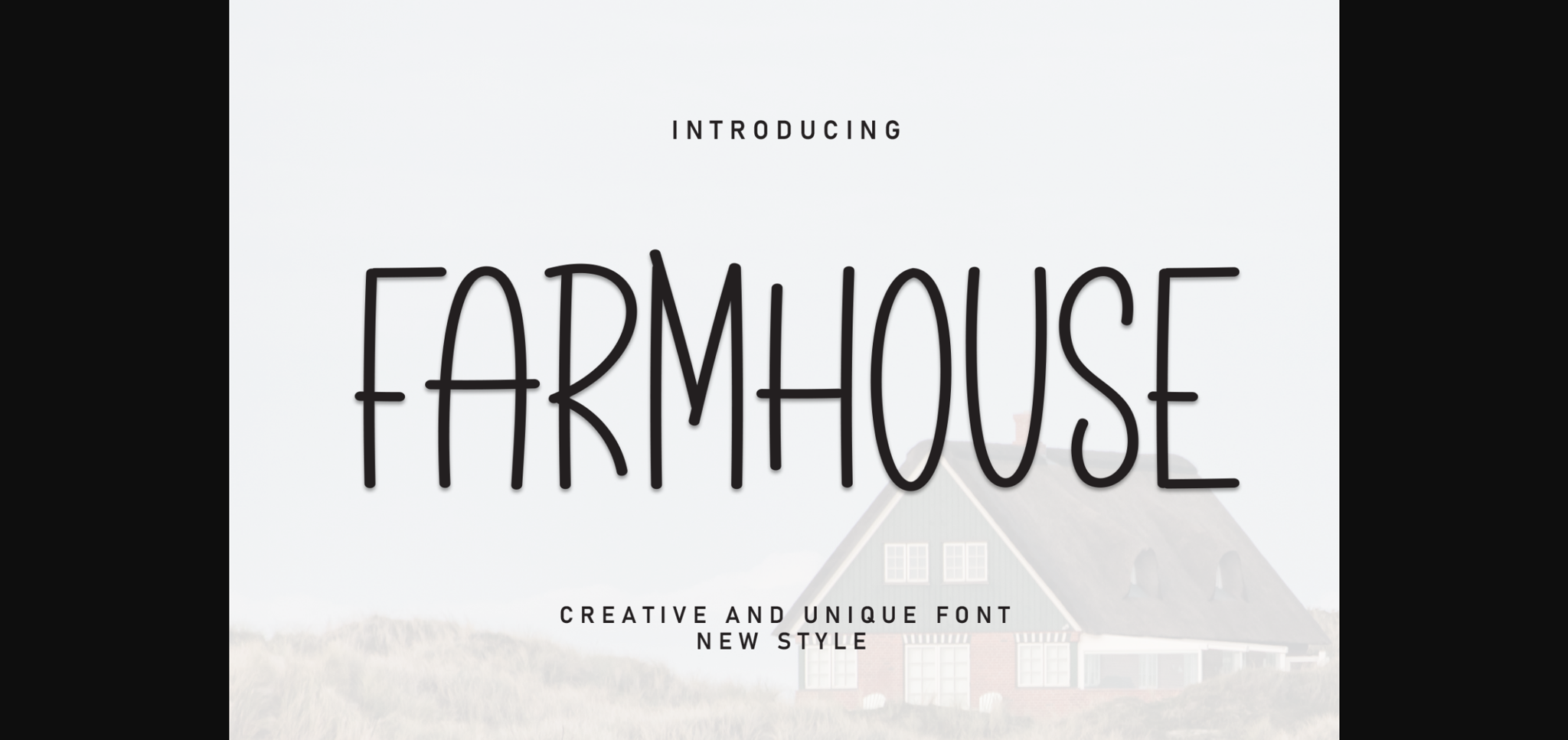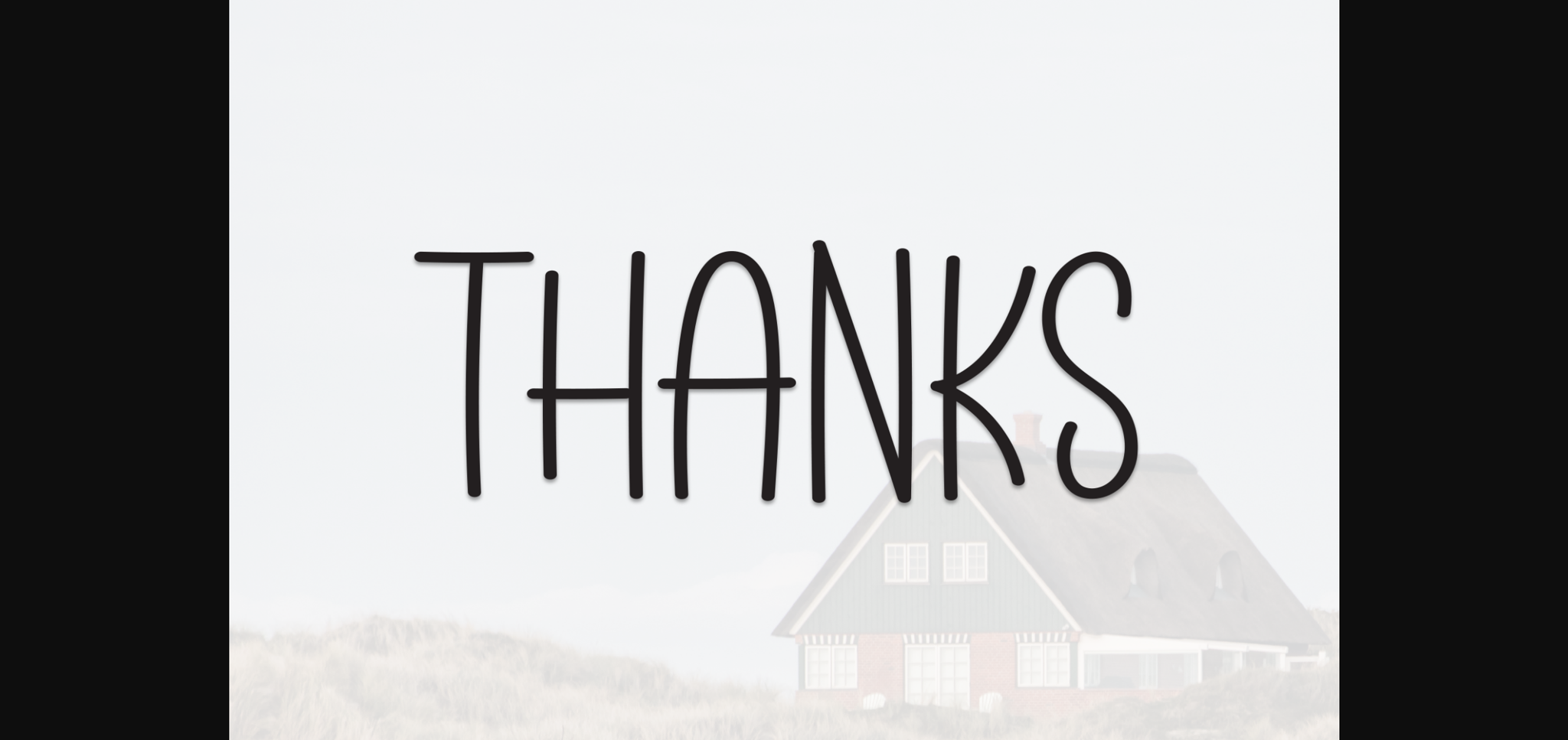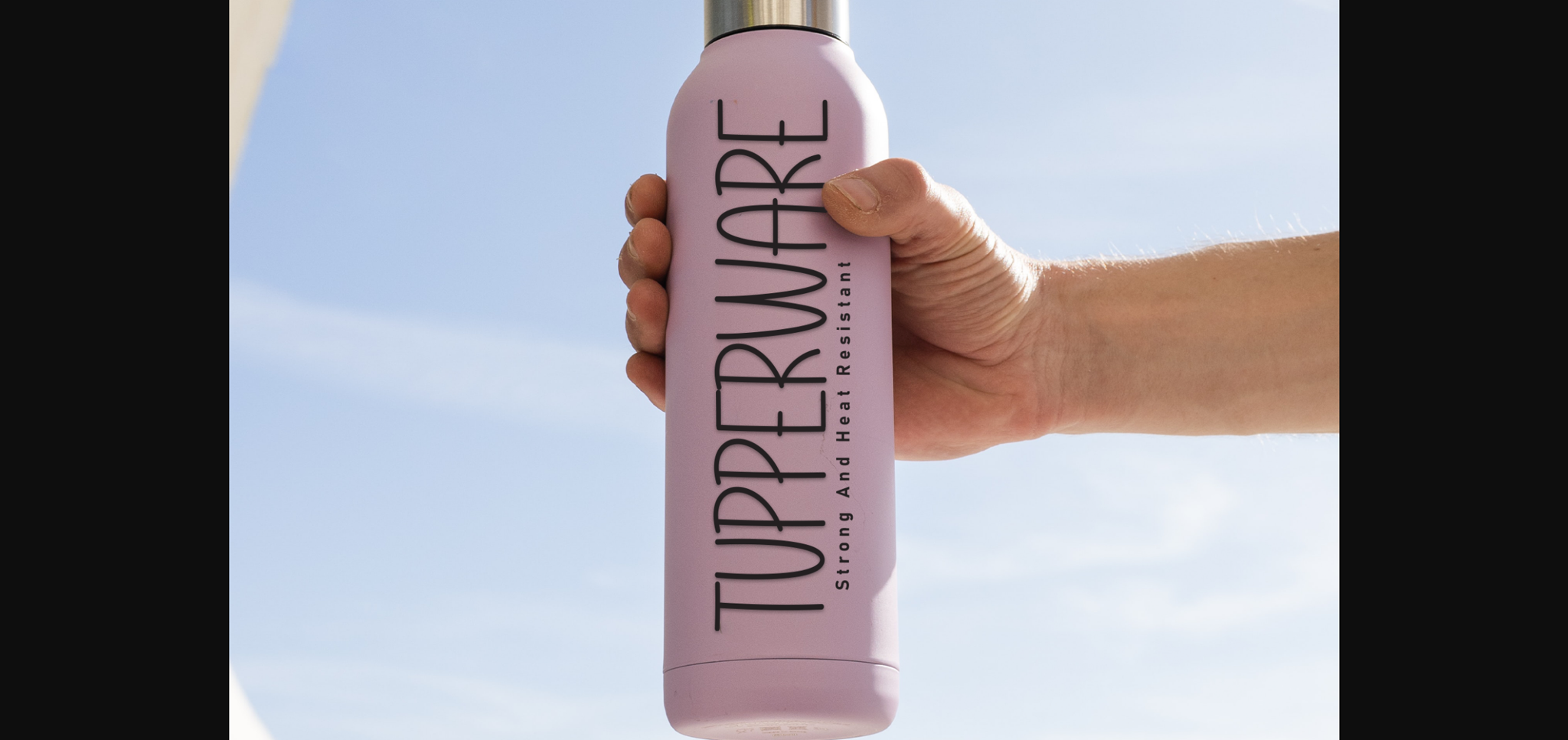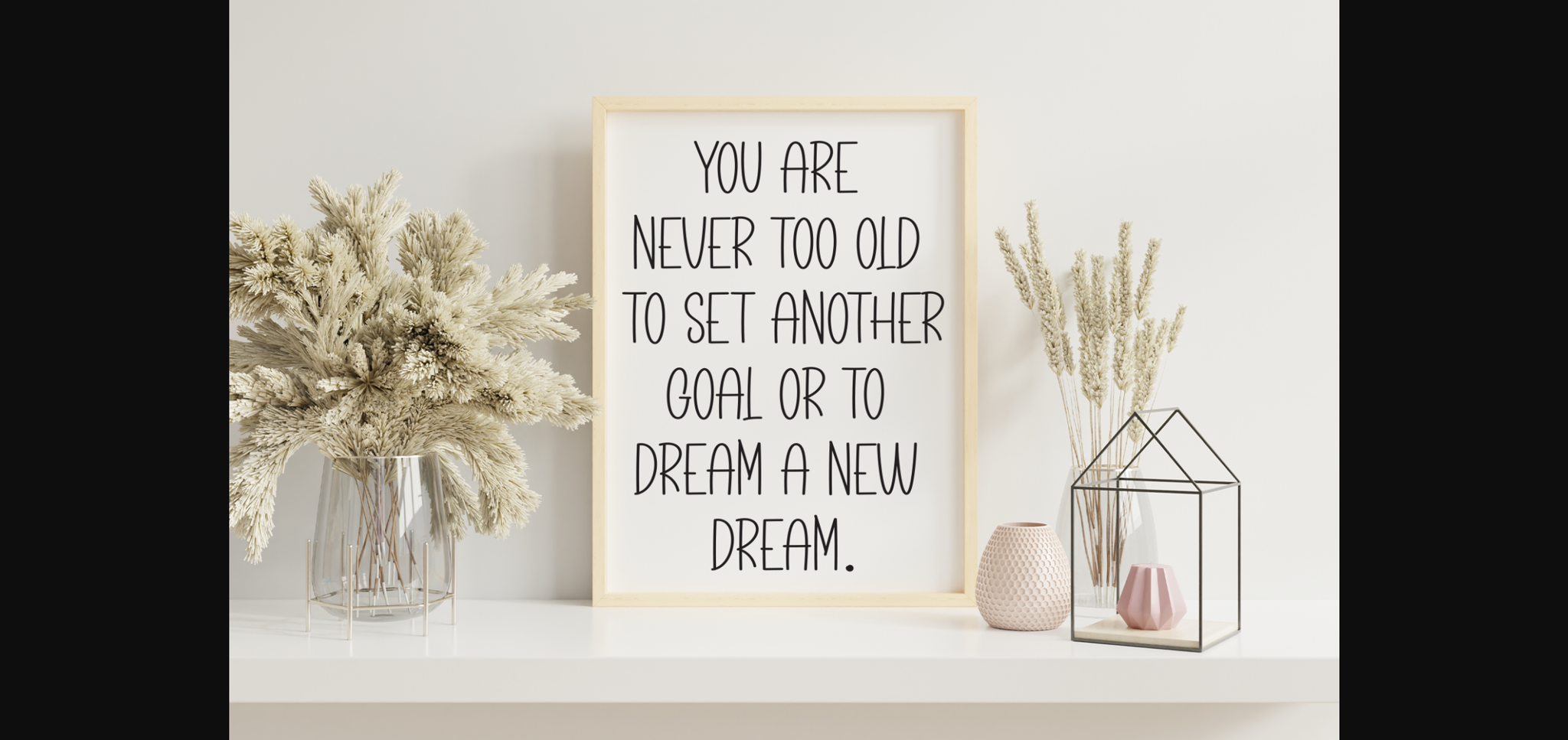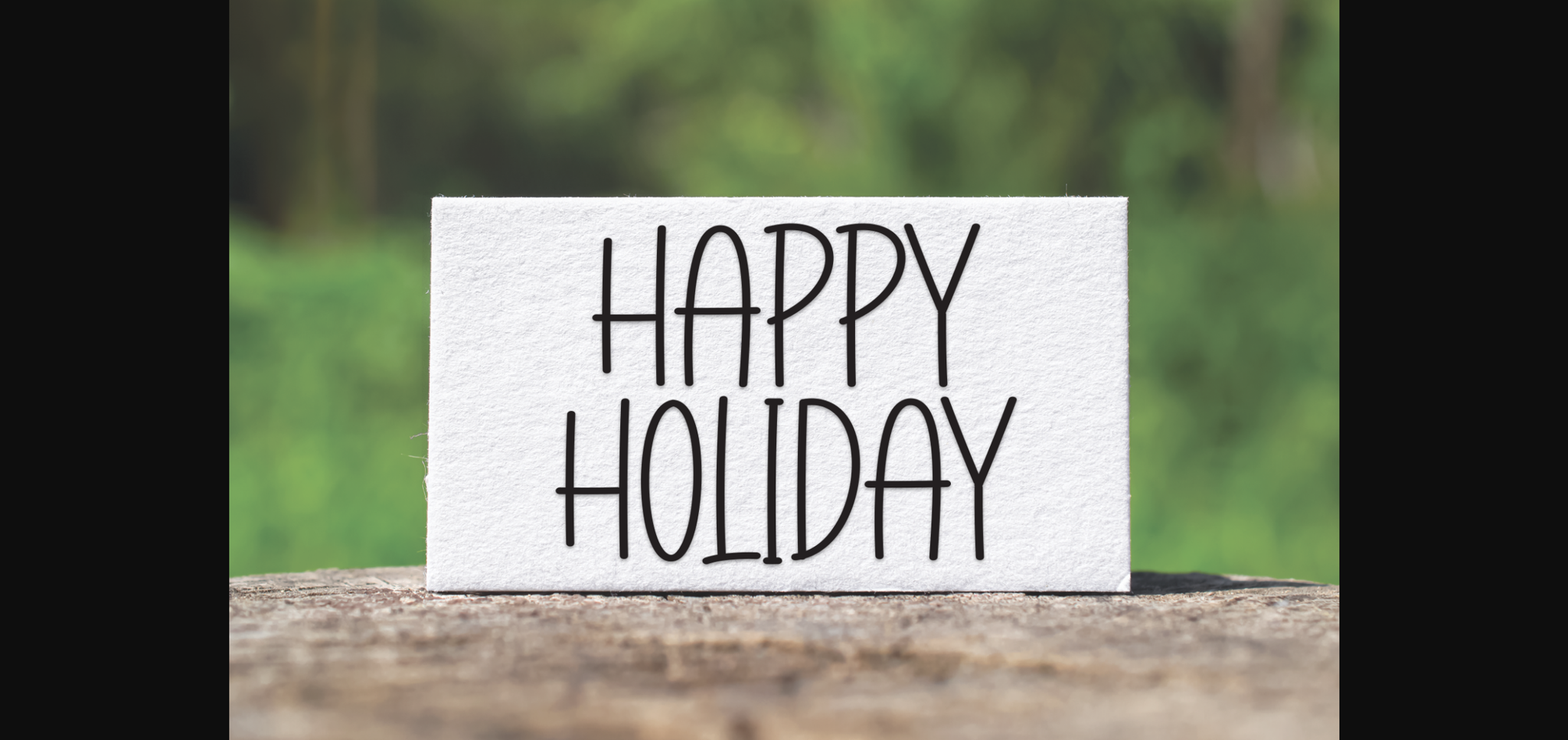
About Farmhouse Font
Farmhouse is a sweet and friendly sans-serif font. Cute and versatile, this font is ideal for writing wedding invitations, cards, or any other design that might need a fun touch!